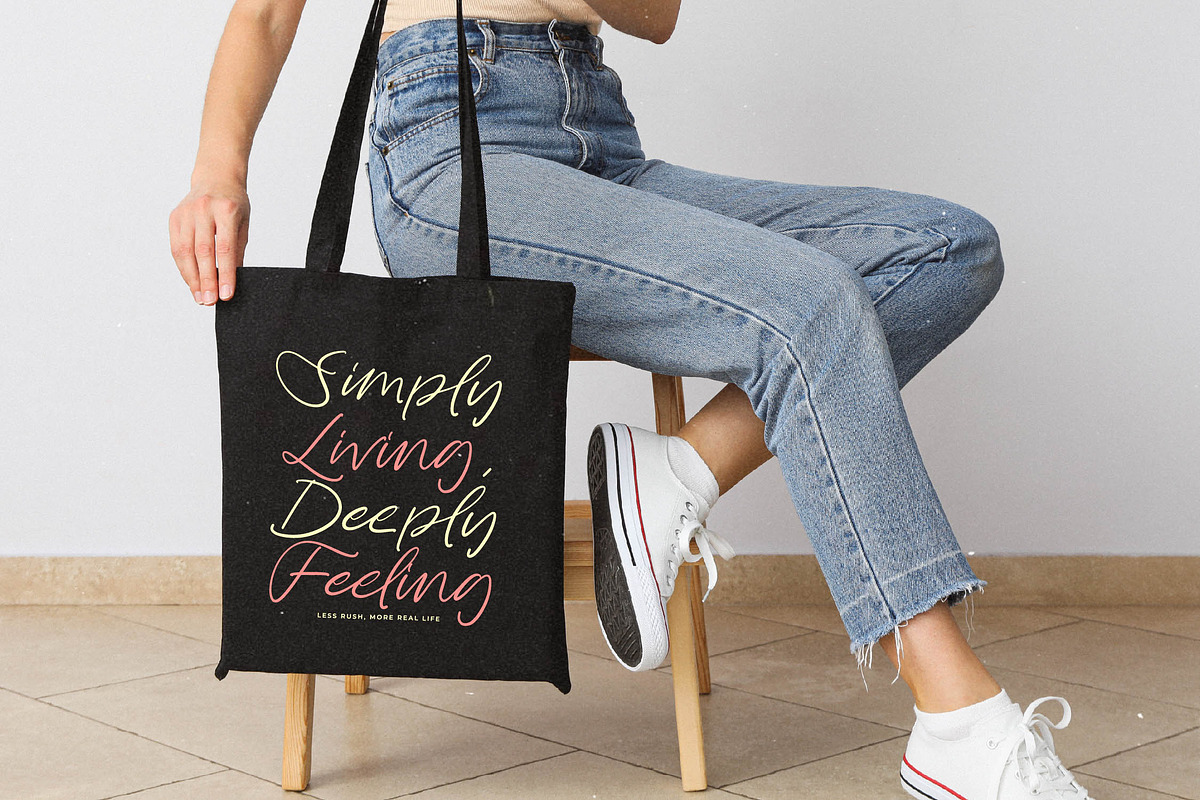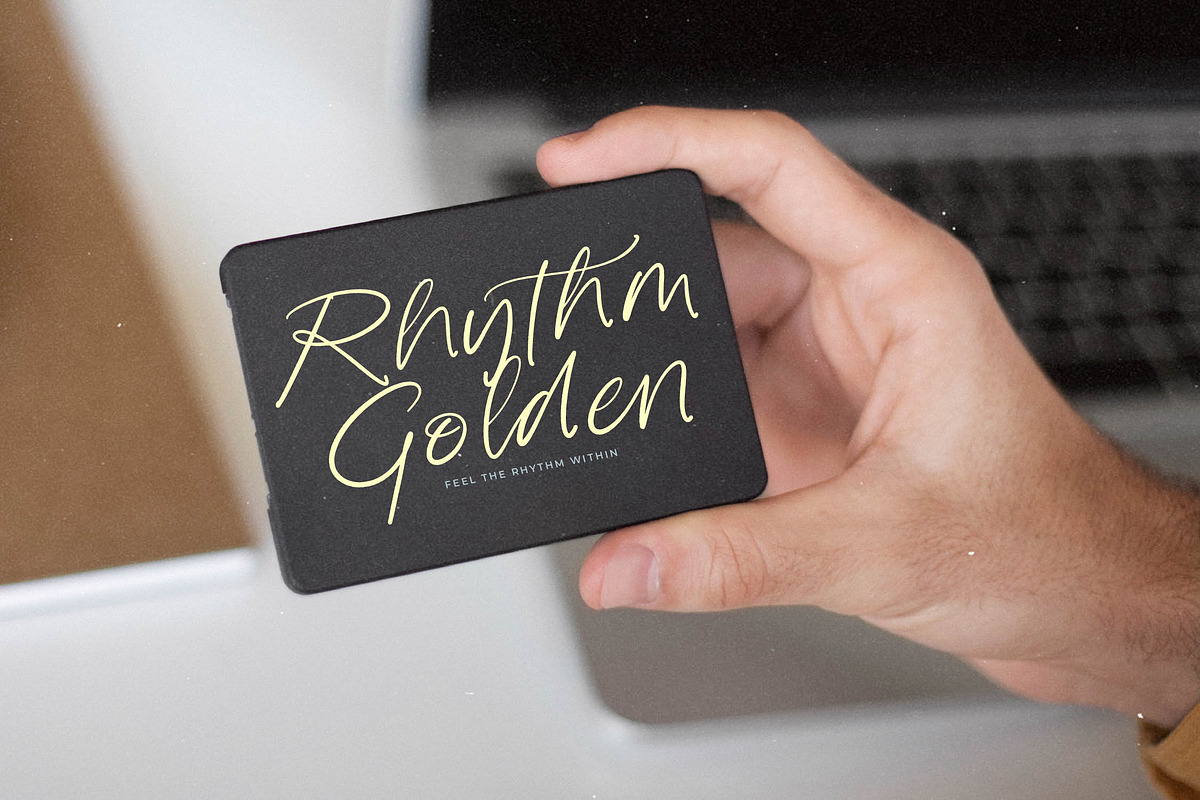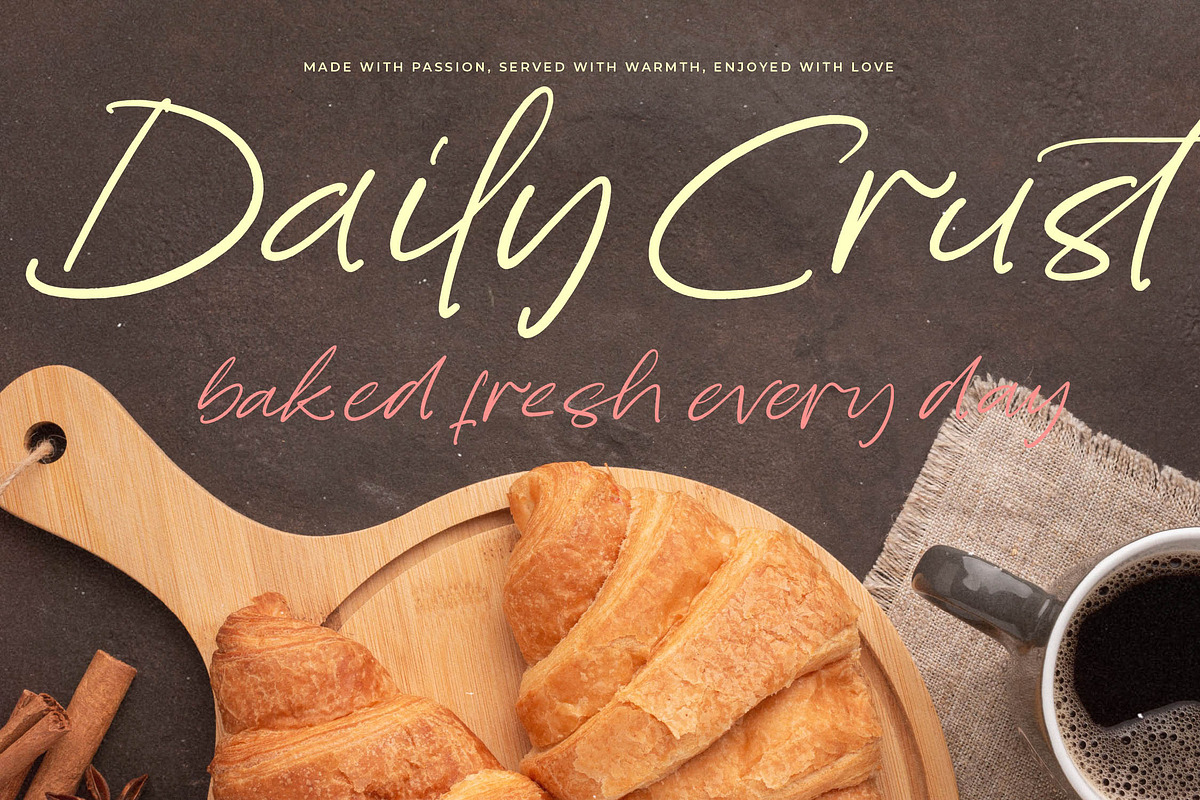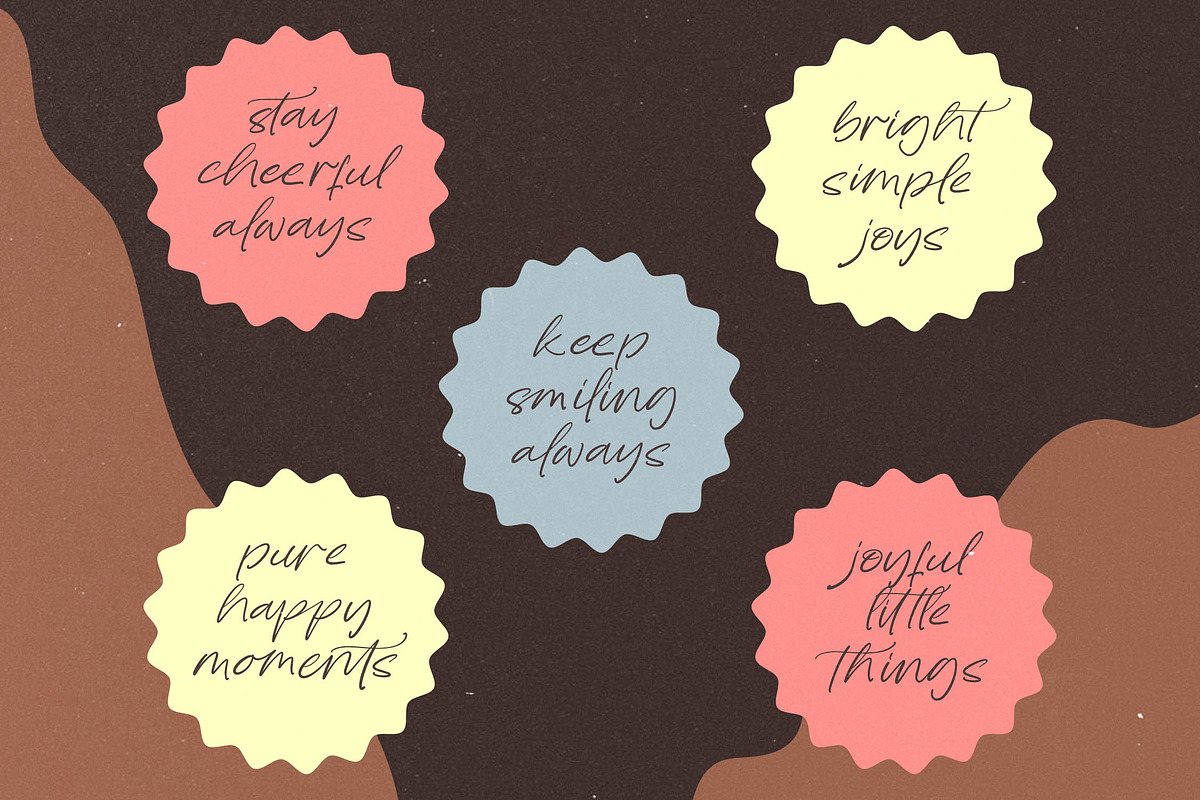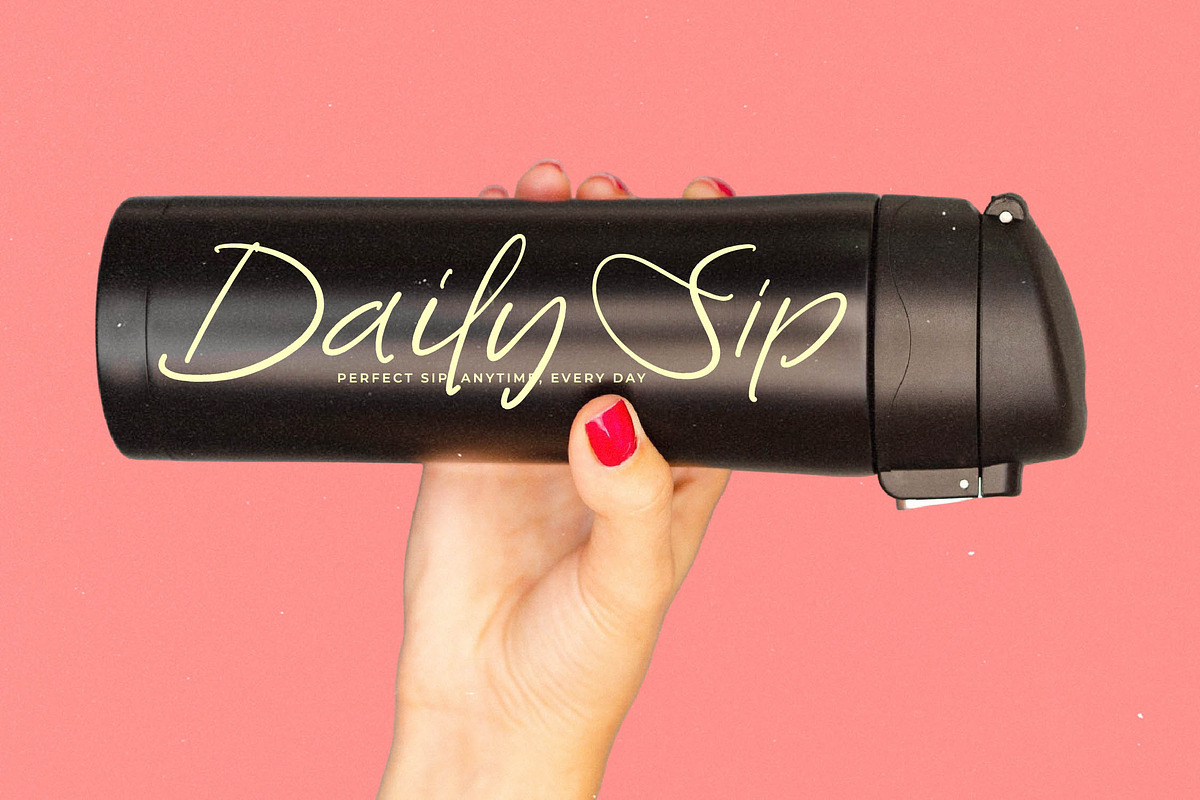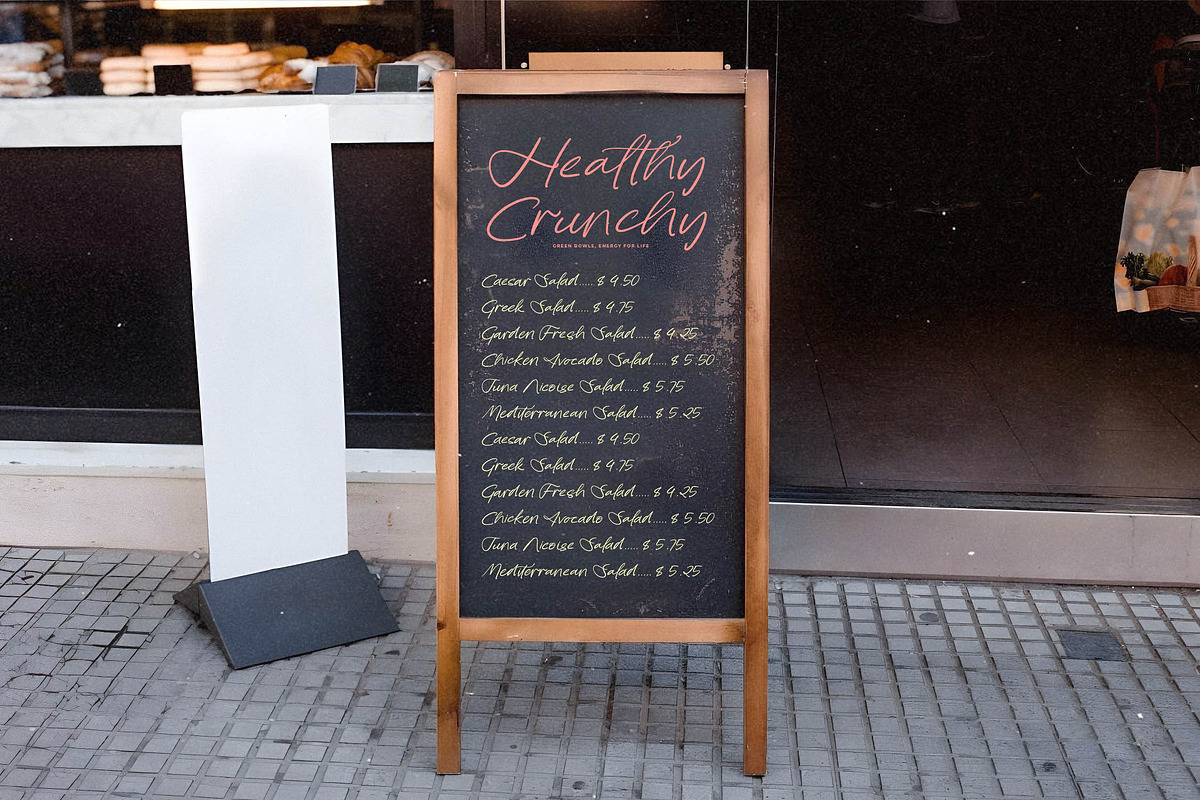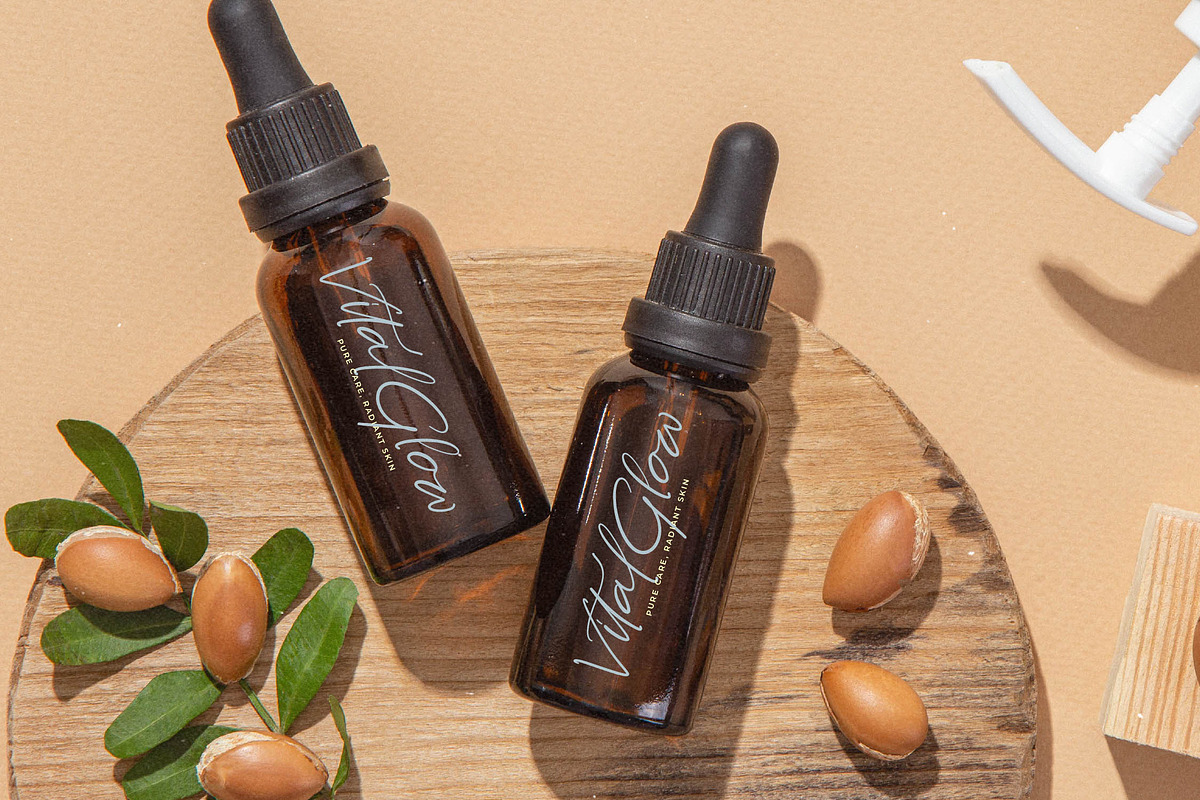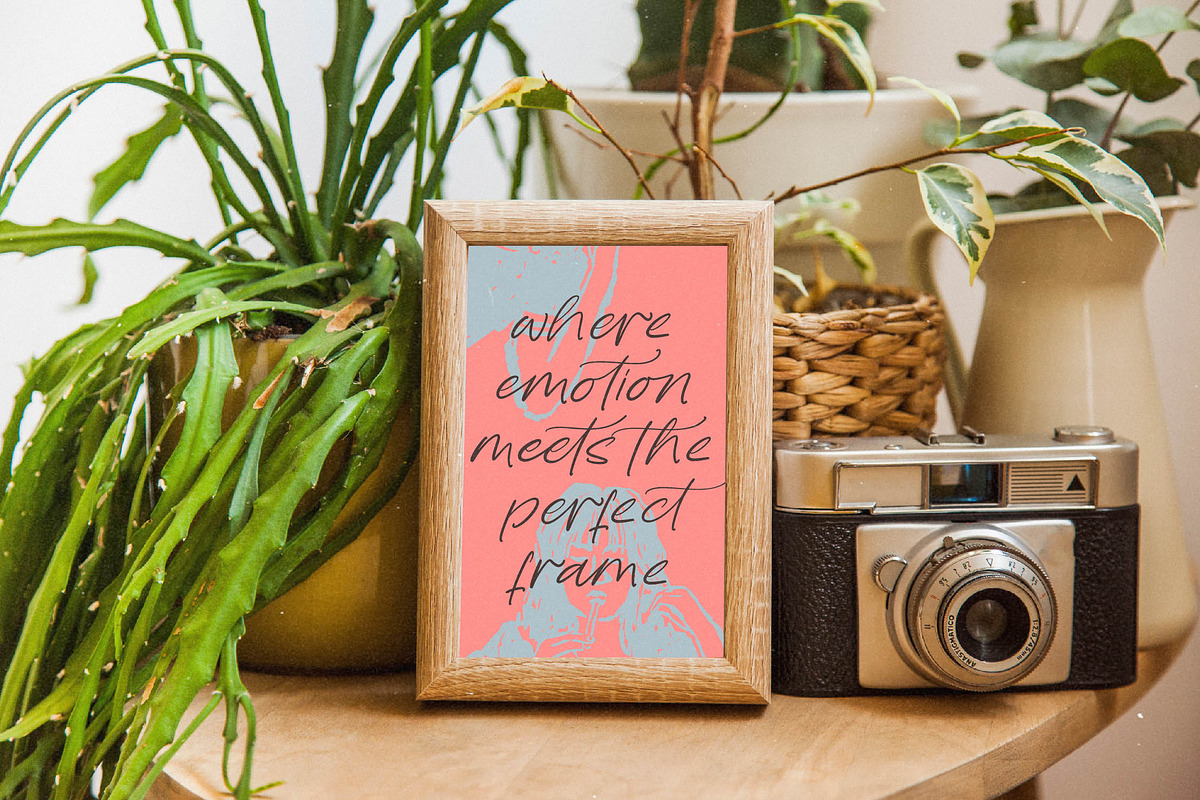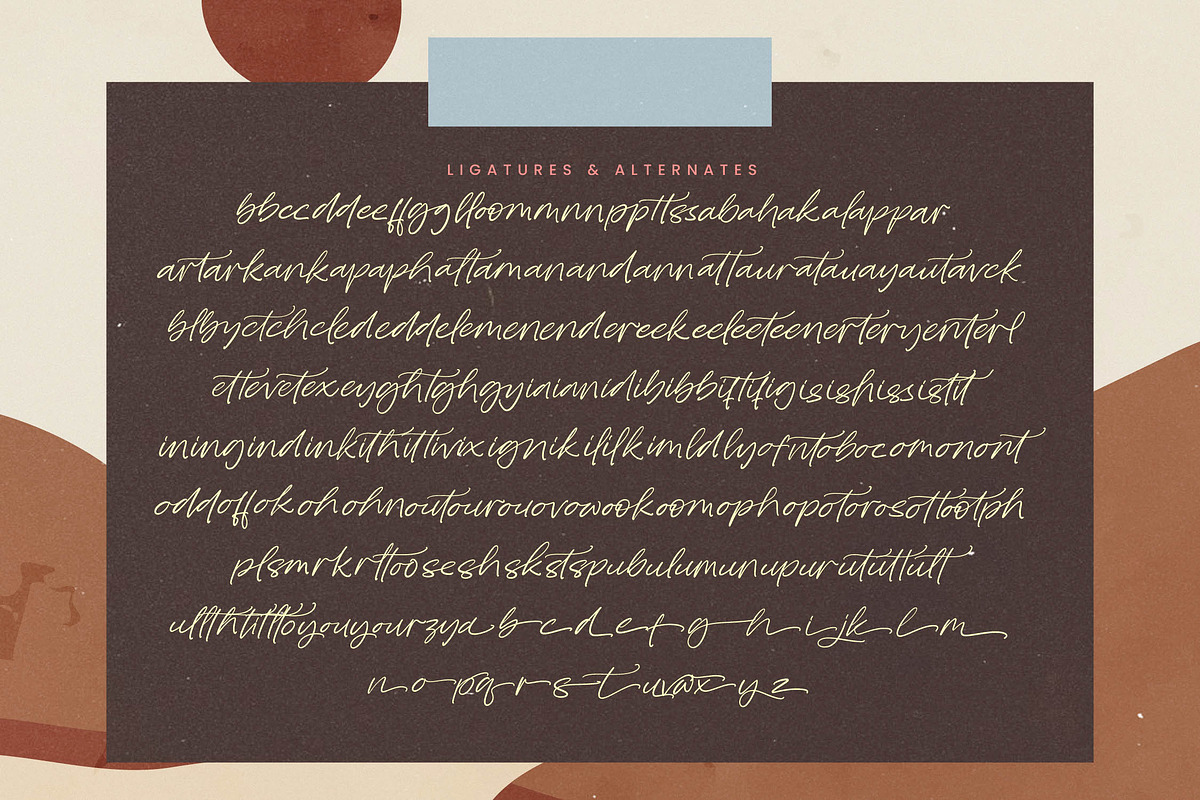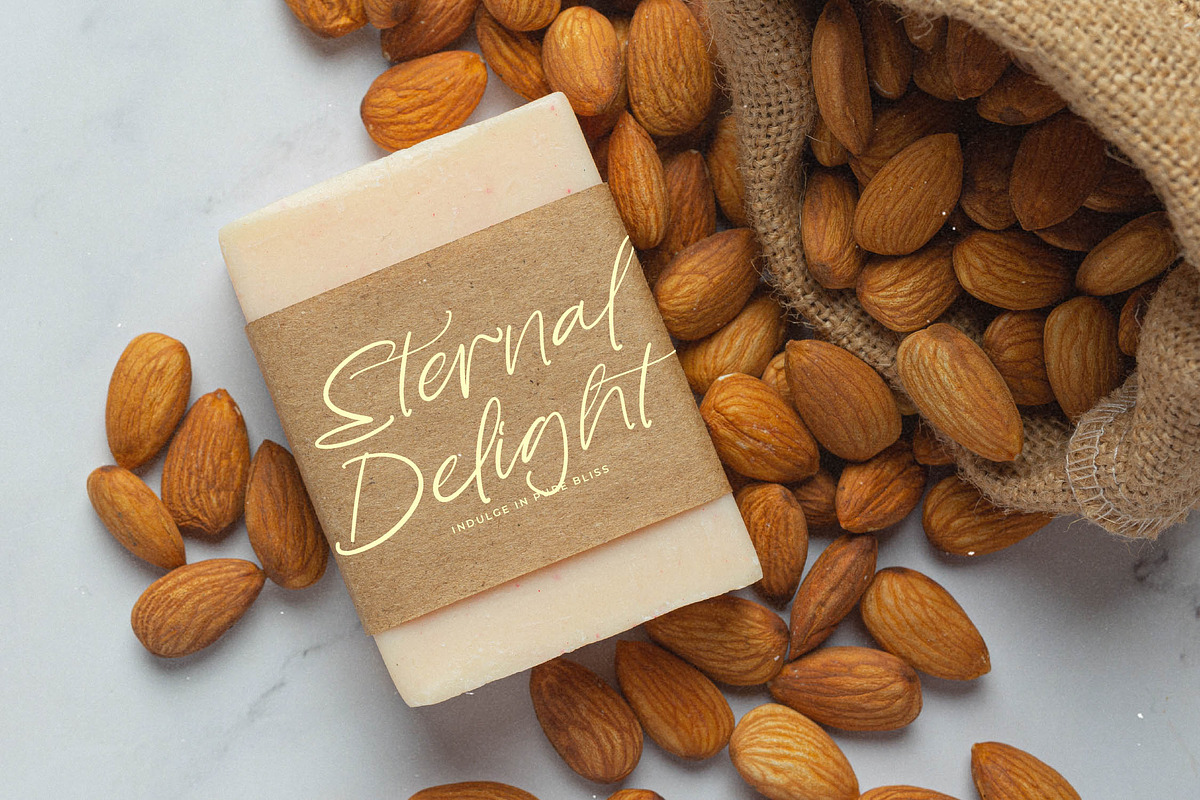
Bluebell Cottage Modern Handwritten
Bluebell Cottage - Modern Handwritten Font ,Bluebell Cottage is a modern handwritten script font with a smooth, flowing style that captures warmth and creativity. Featuring 147 ligatures, 26 alternates, and 505 total glyphs, this typeface blends casual charm with refined elegance — perfect for invitations, branding, quotes, packaging, and creative projects that need a personal touch. Its graceful strokes and natural rhythm evoke cozy handmade artistry, making it ideal for designs that want to feel heartfelt and expressive. Bluebell Cottage adds personality, authenticity, and effortless beauty to any visual composition, whether digital or print.